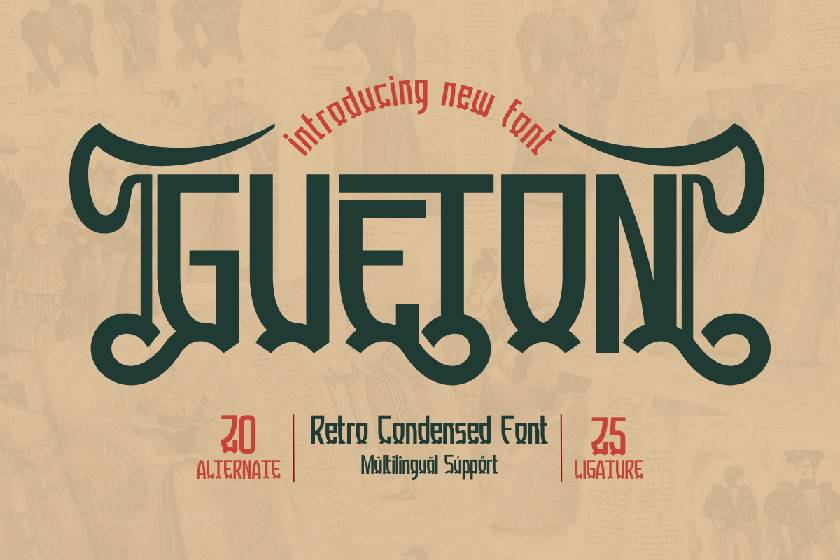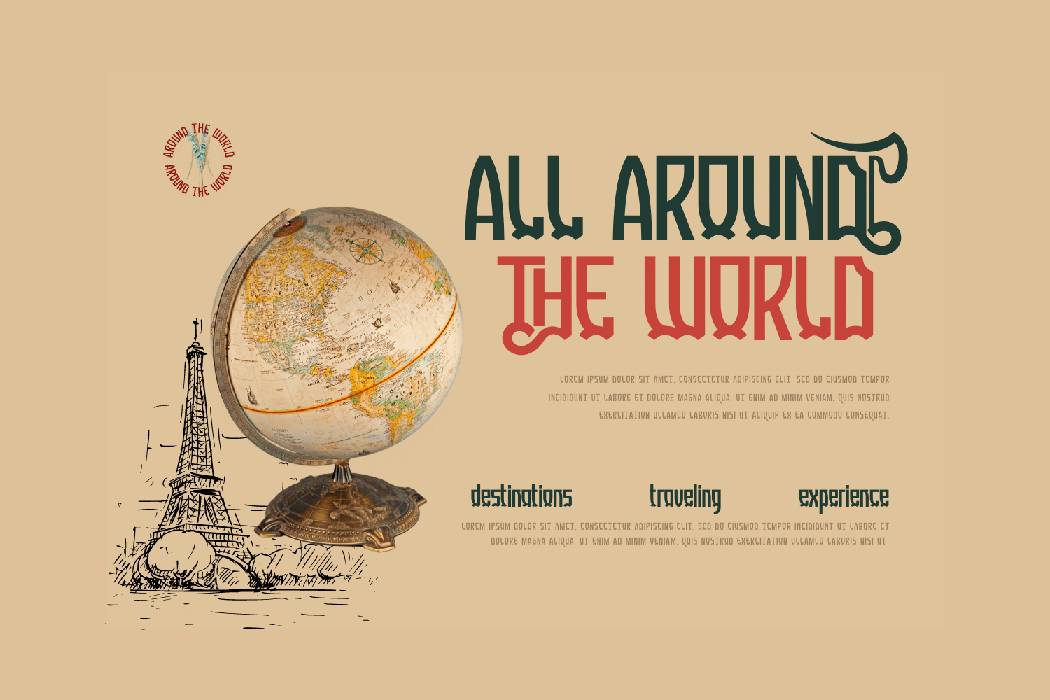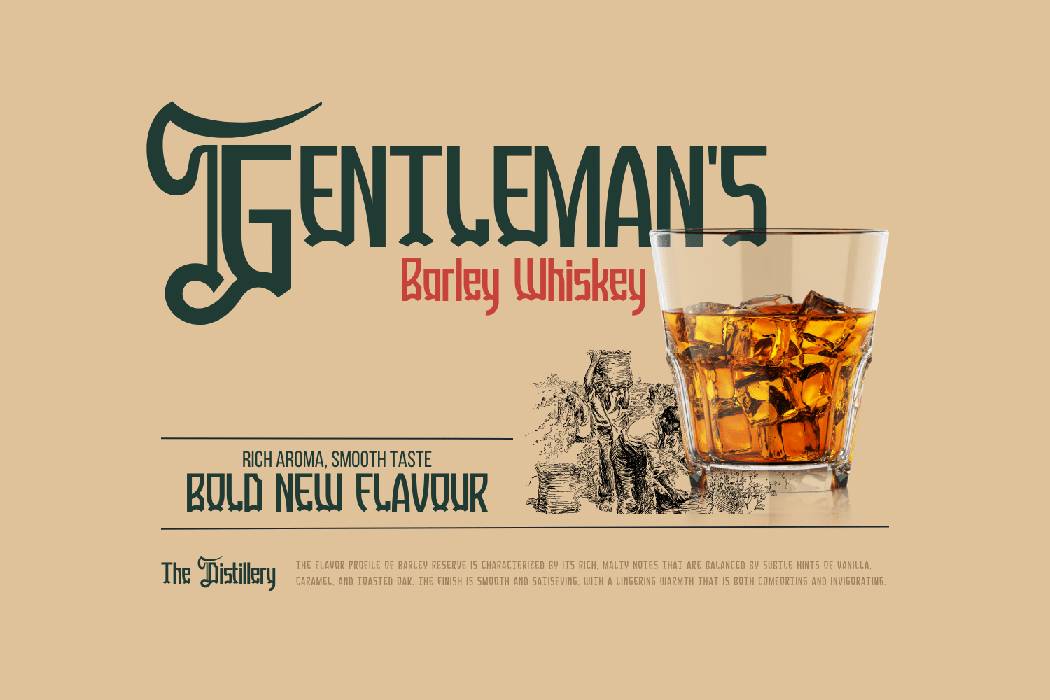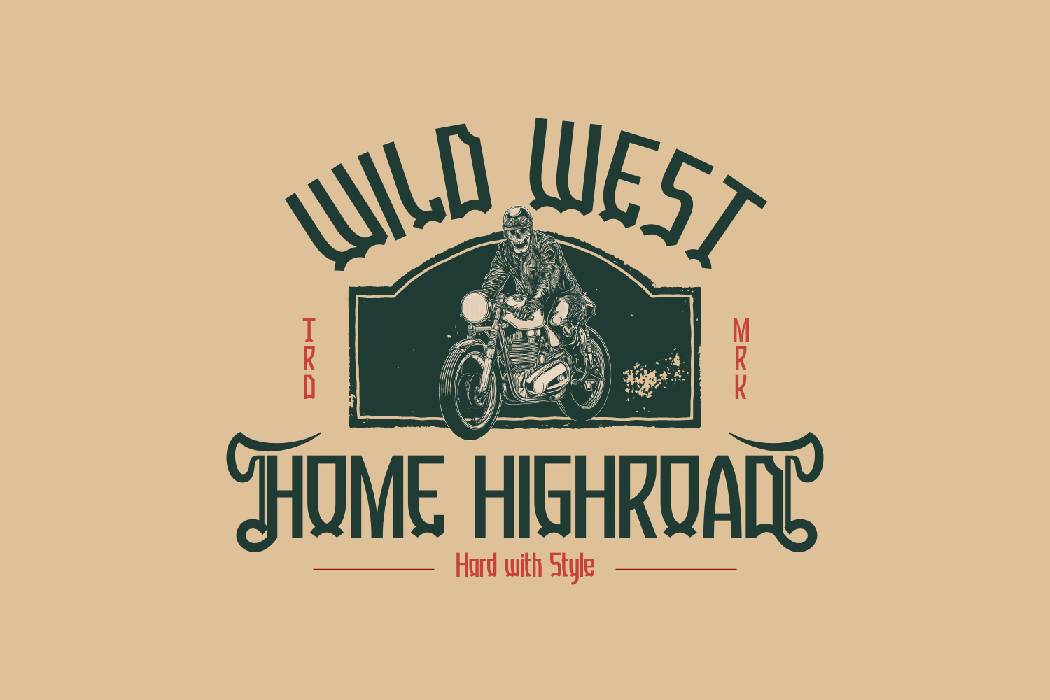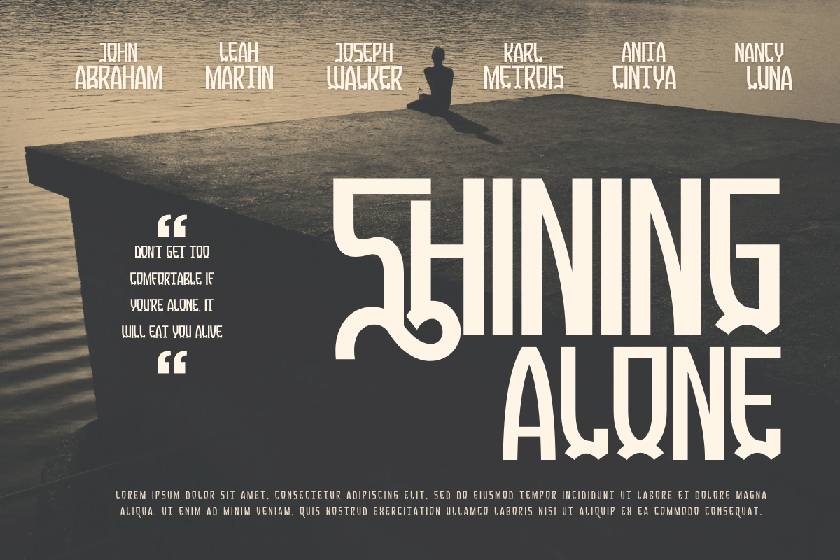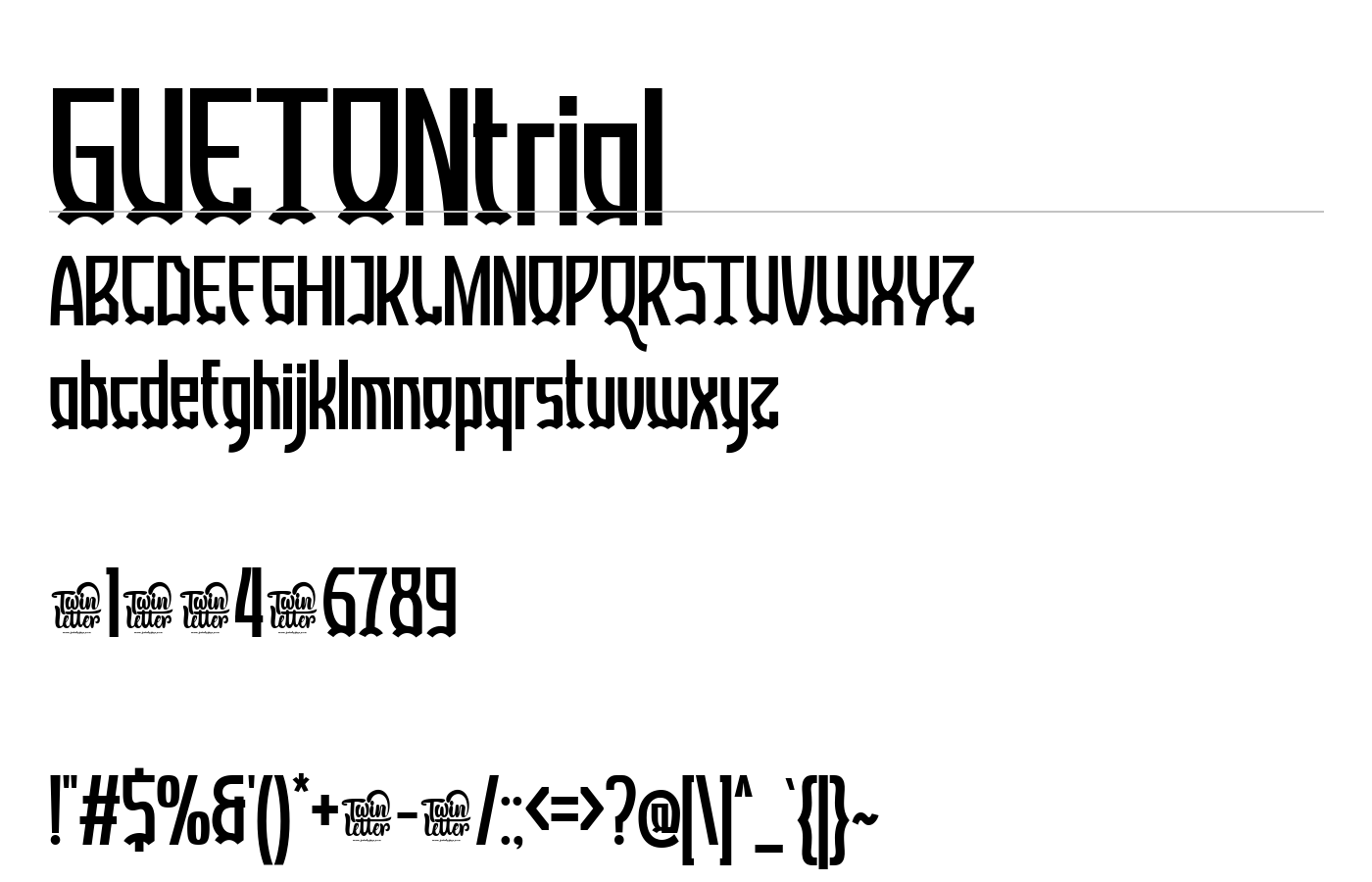
Gueton is a bold, condensed serif font with a distinctive gothic flair, featuring sharp, bracketed serifs and a high contrast between thick and thin strokes. Its tall x-height and narrow letterforms give it a striking, vintage-inspired appearance perfect for creating strong, dramatic headlines or logos with an edgy, artistic vibe. This font works well for branding, posters, and editorial design where a unique, attention-grabbing style is needed.
Gueton Font
About Gueton Font
| Font family | Gueton Font |
| Release date | 2023-02-04 |
| Designer | Ojak |